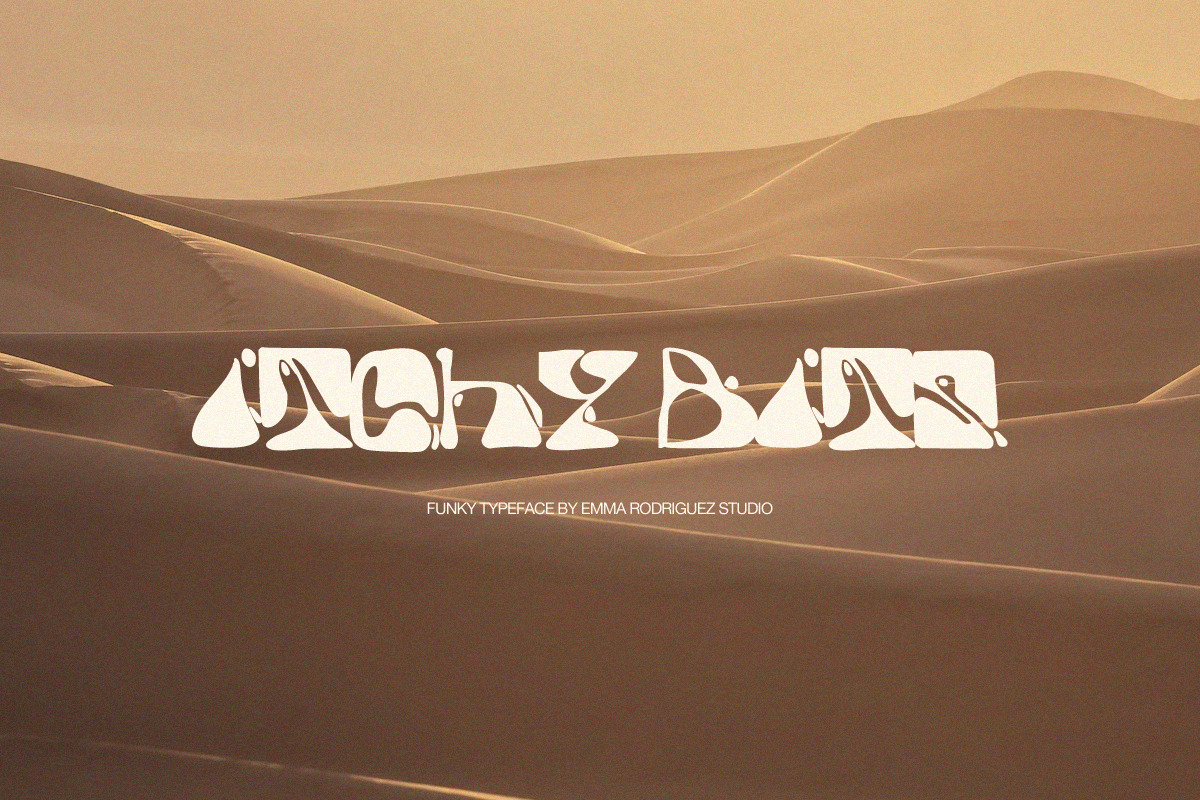
Itchy Bits | Decorative Bold Font
Funky, eccentric and retro all at the same time, this fun and bubbly font is all yours, and you can use it on all your personal, web and commercial needs.